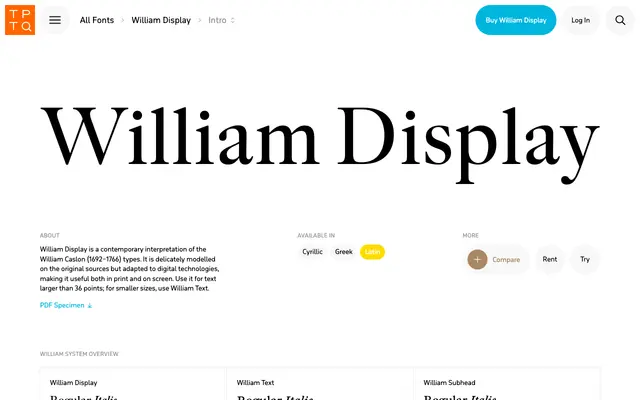
William Display
The display-sized cut of Typotheque's William system, offering high contrast and an engraved variant suited to large-scale editorial and identity work.
Part of the broader William type system alongside Text and Subhead cuts, William Display is optimised for headline sizes where its contrast and fine detail read clearly. An engraved style adds a distinctive incised character to the regular and bold weights, extending the family's range for decorative and prestige applications. A variable font version is available, and all cuts share italic companions.
William Display is the high-contrast, large-scale cut of the William system, featuring an engraved style alongside regular and bold weights, consistent with classical display serif traditions.